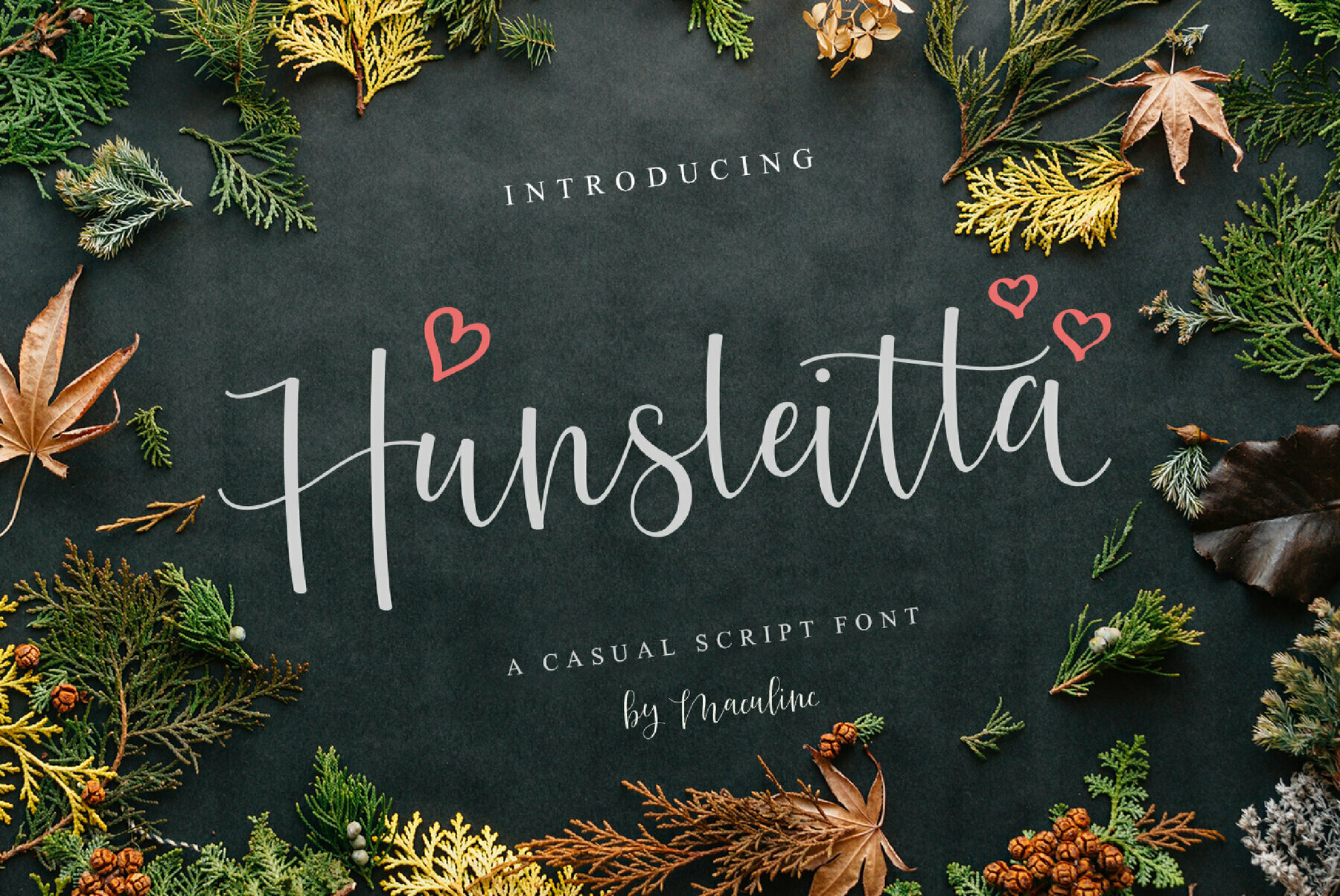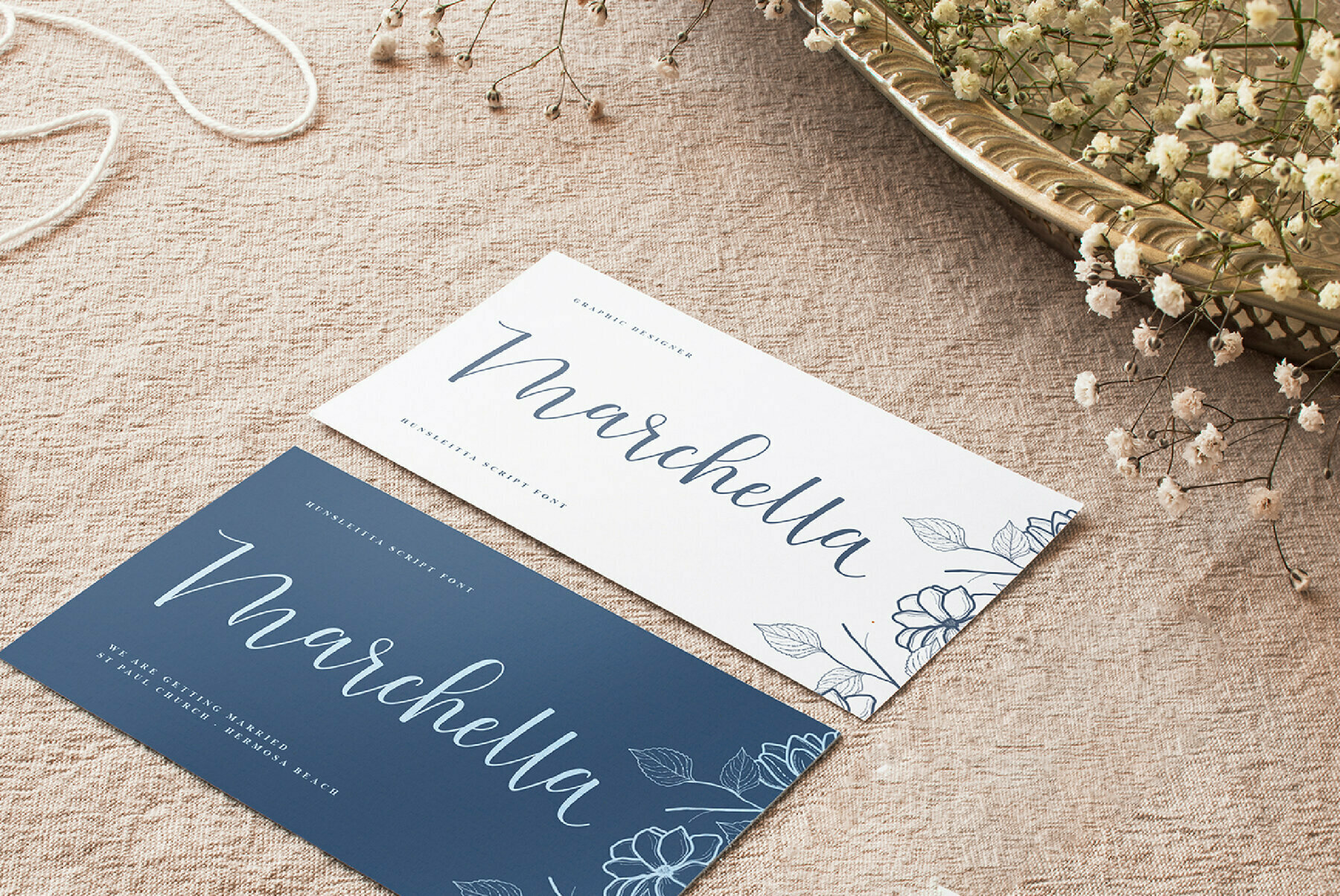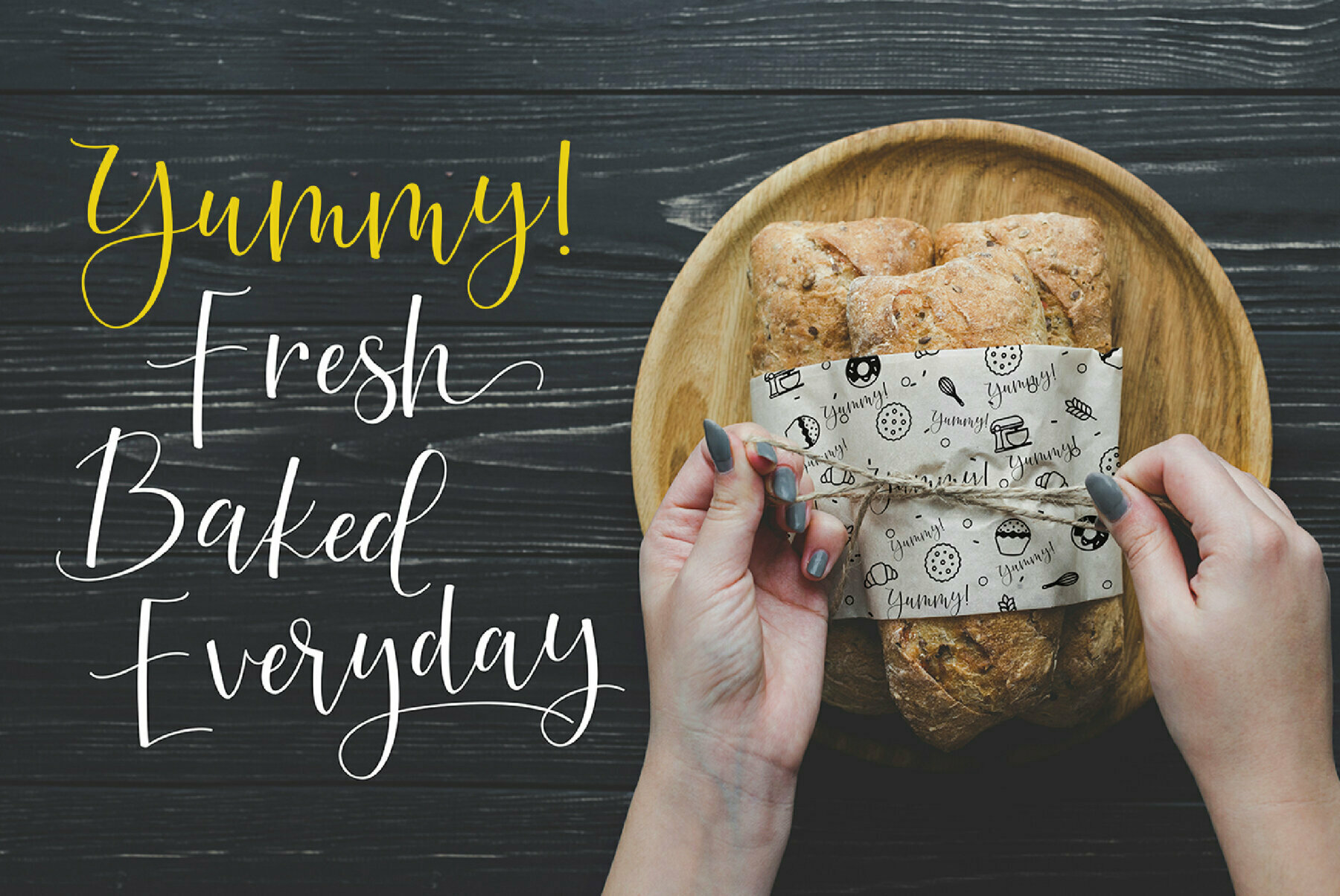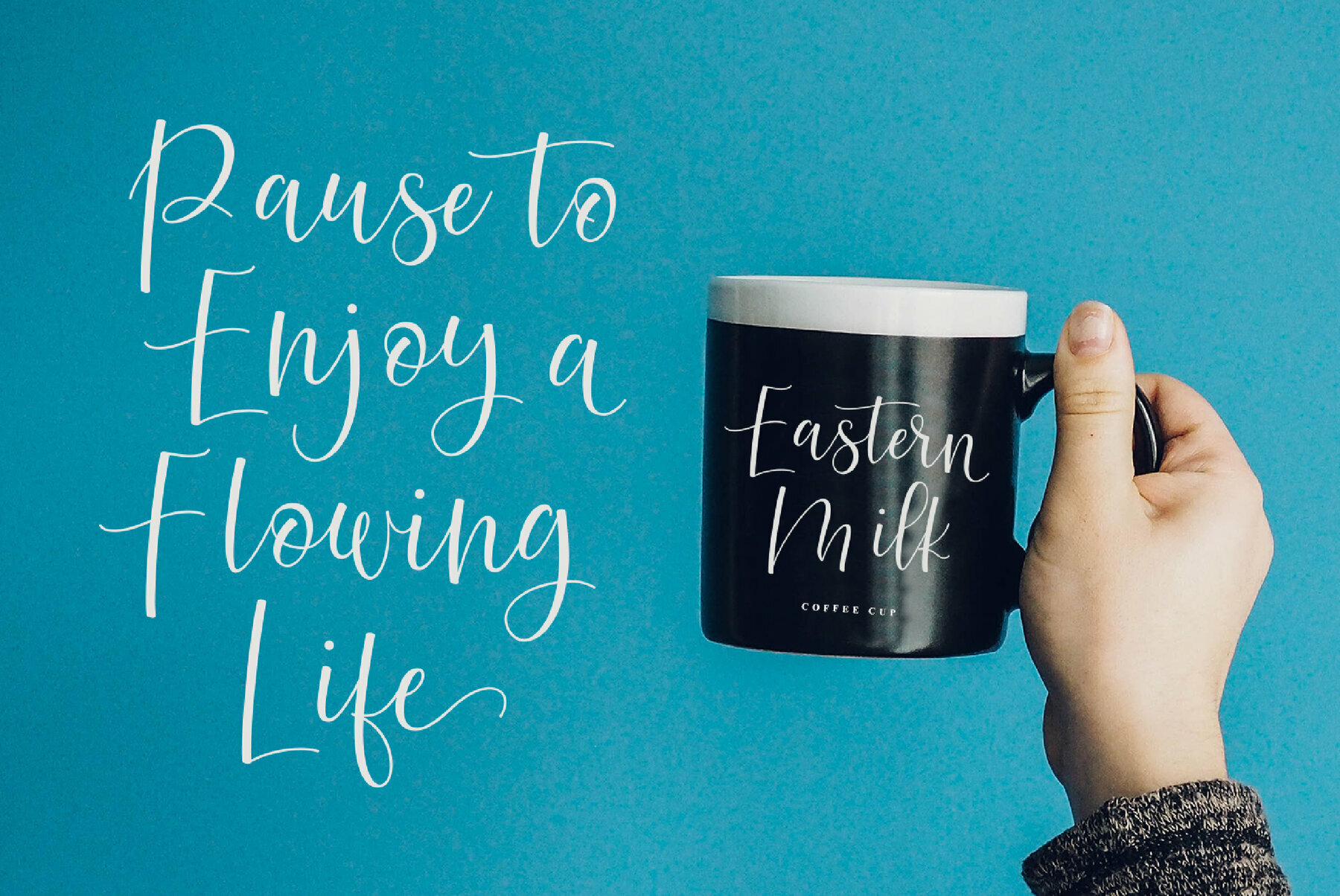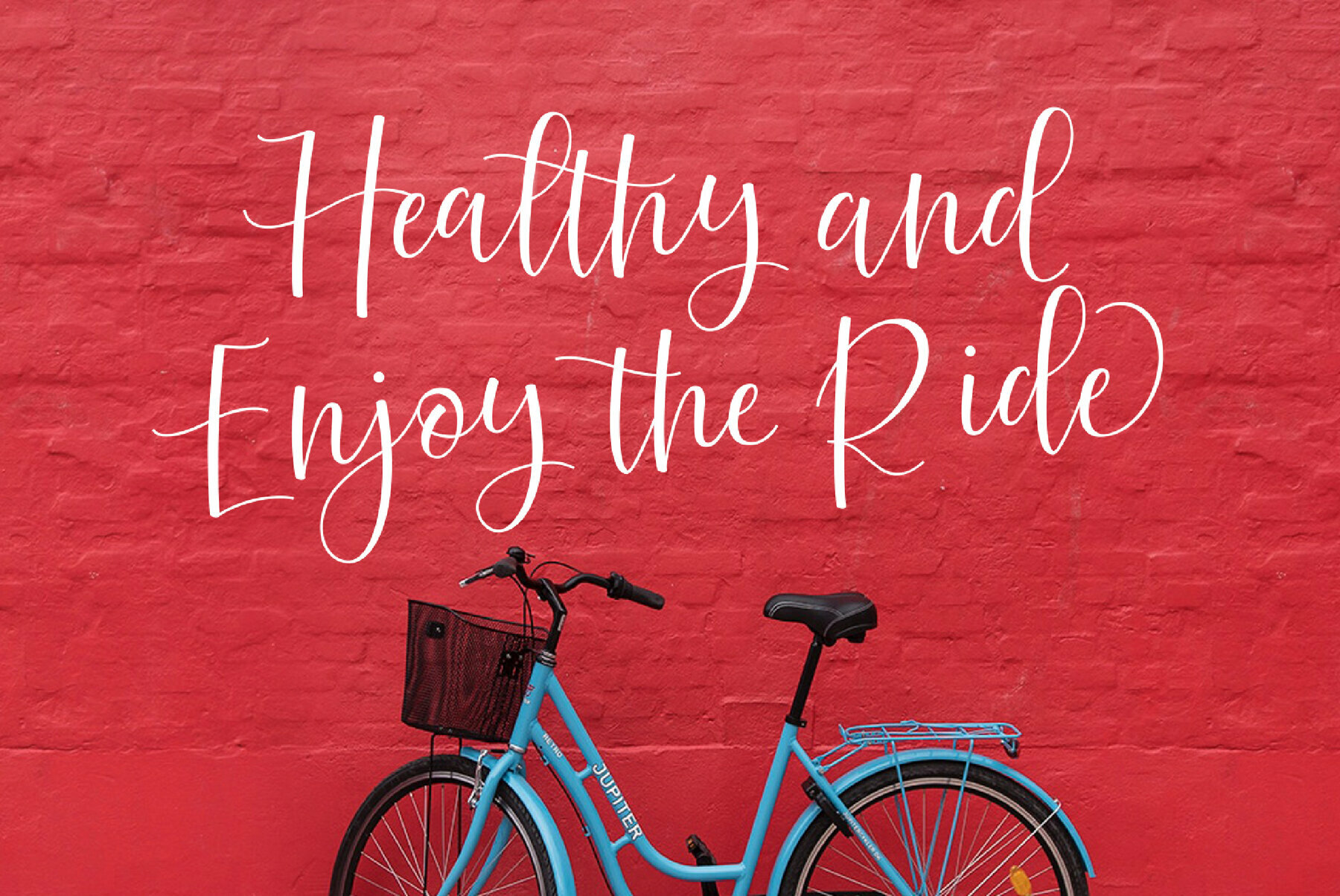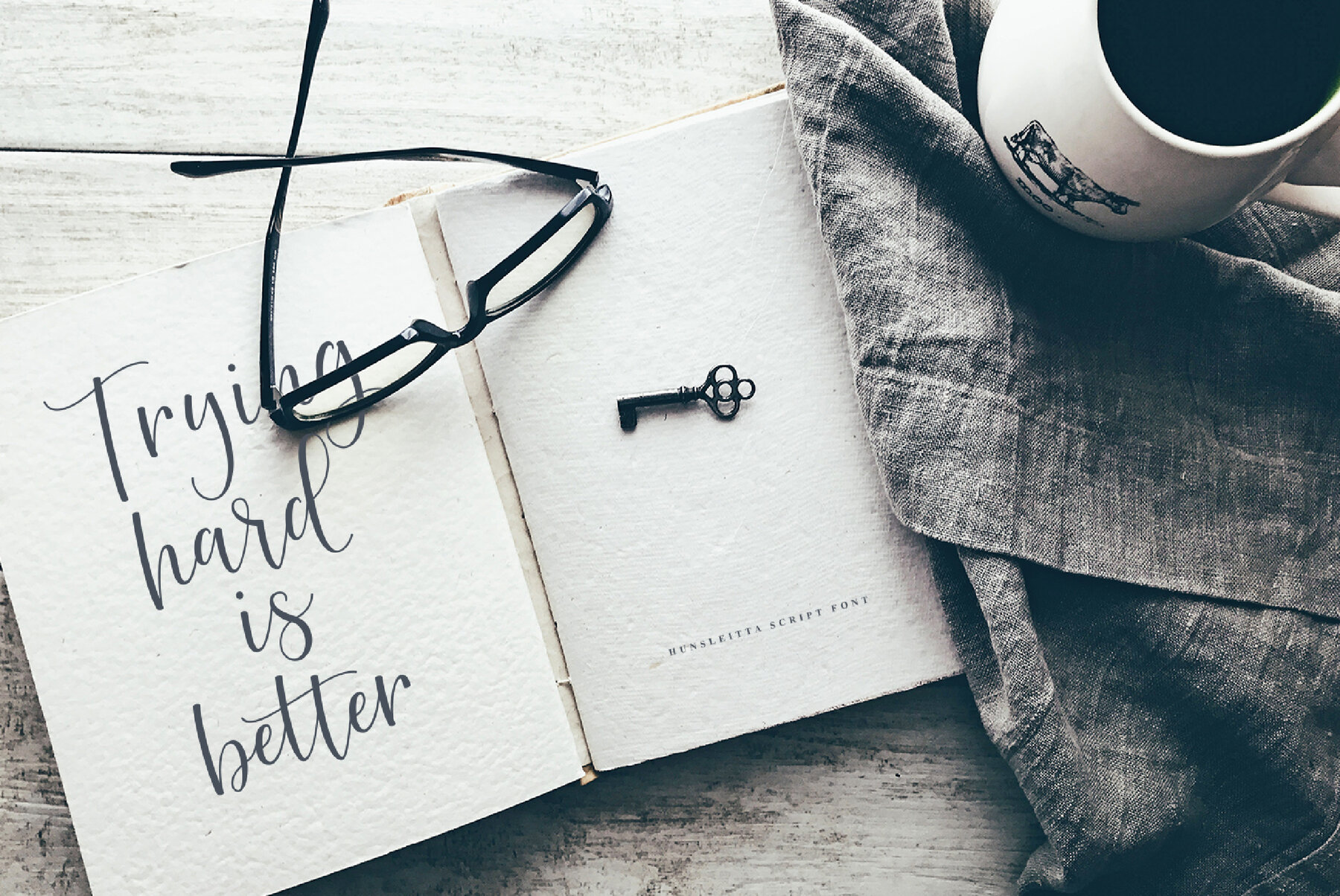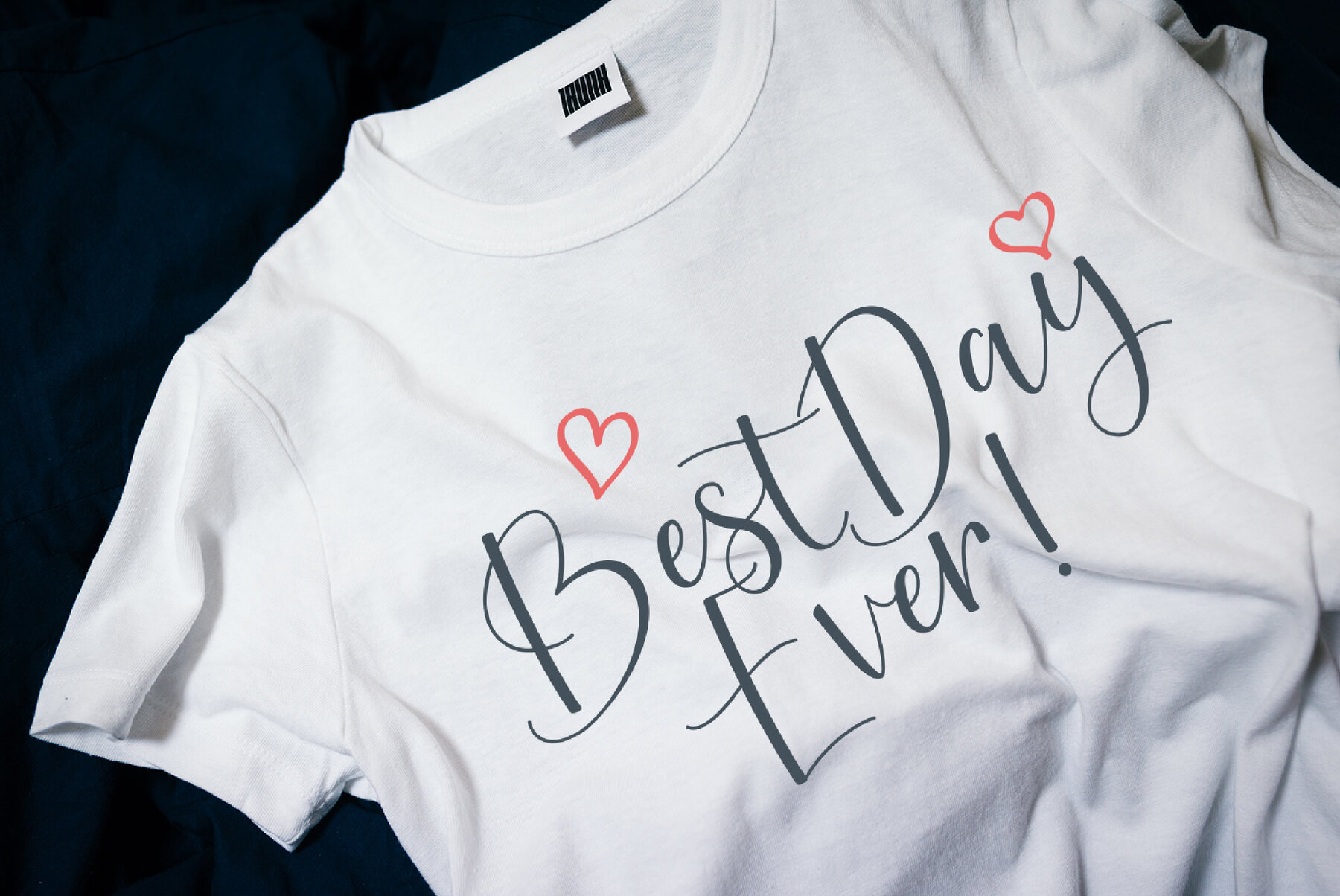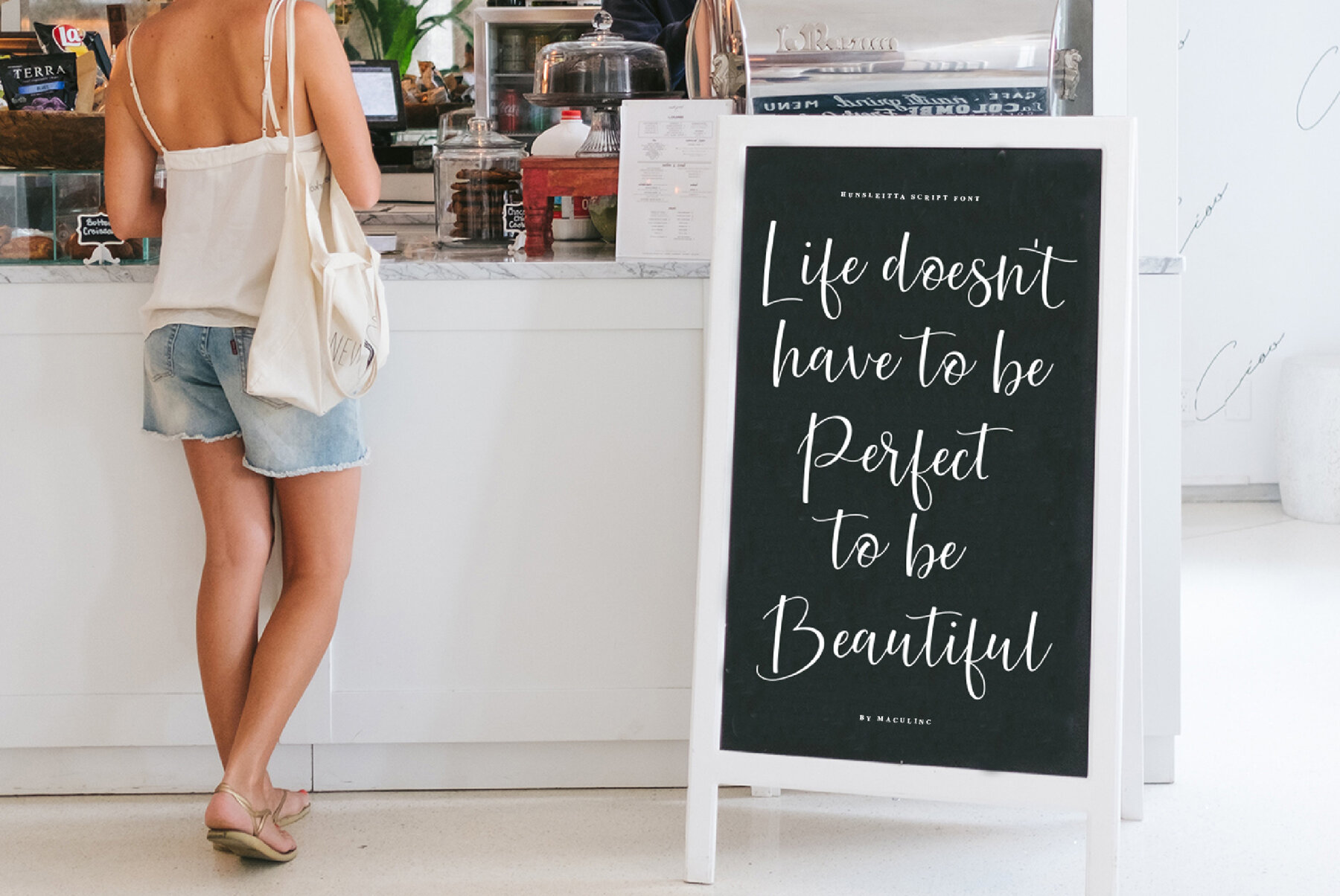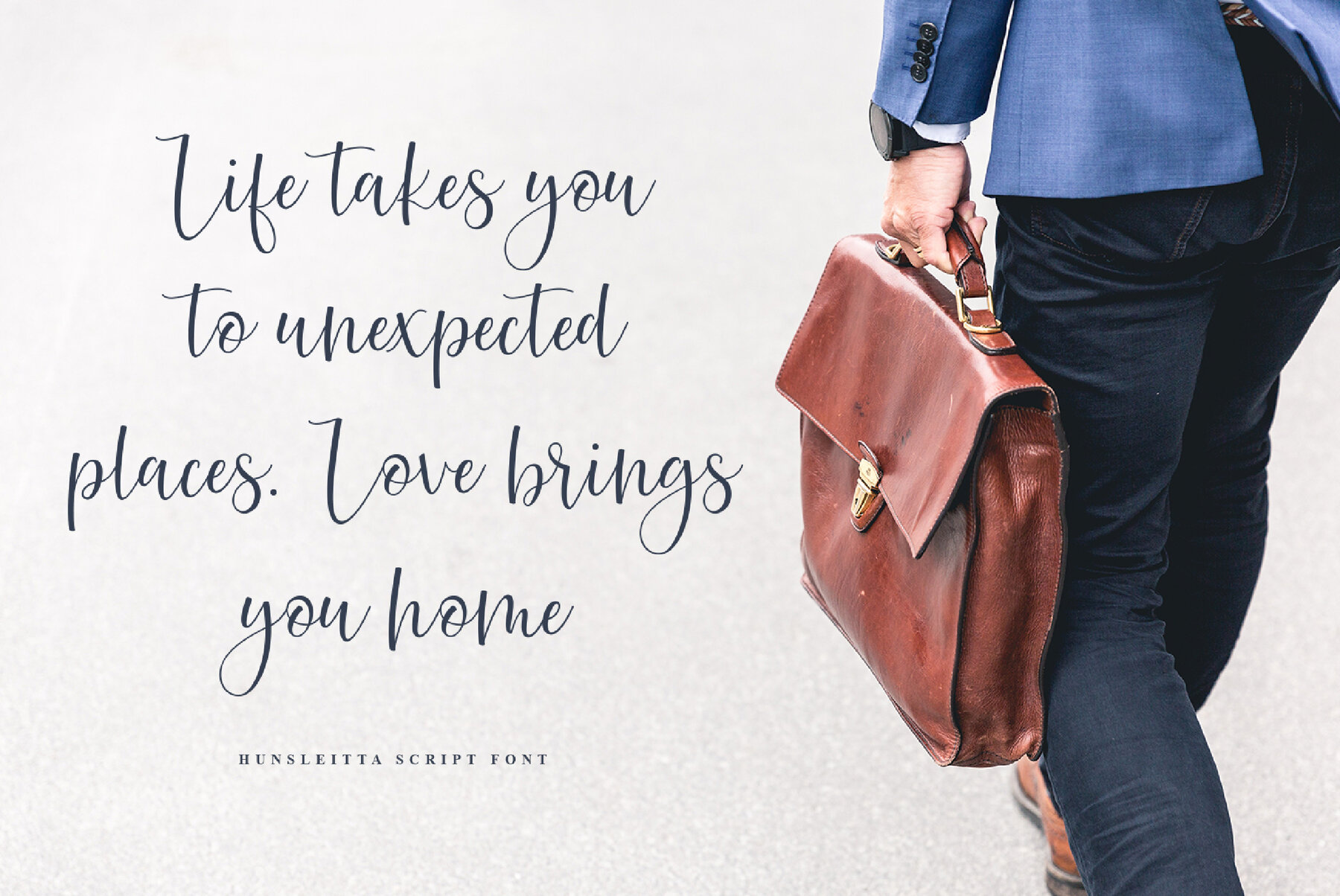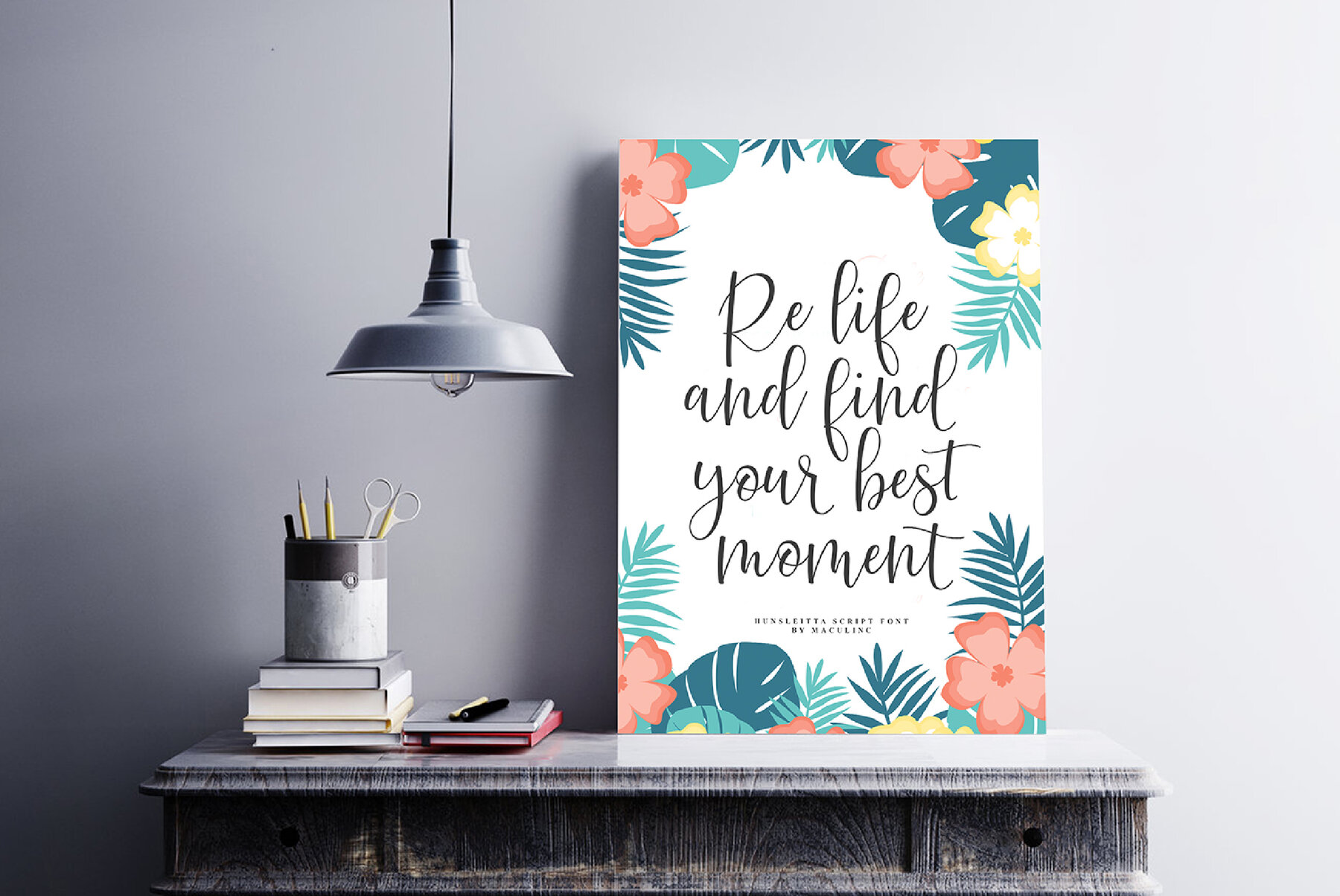
Hunsleitta Font
Hunsleitta offers a remarkable typeface option that balances readability and style, making it suitable for a wide array of projects. Whether utilized in branding, homeware design, product packaging, or as an elegant overlay text, Hunsleitta adapts effortlessly. Its versatility extends to logos, badges, insignias, headlines, posters, apparel, greeting cards, business cards, and wedding invitations. With flowing characters designed to craft attractive messages, Hunsleitta provides a seamless solution for creative directors seeking diversity and sophistication. Offering multiple alternatives—Hunsleitta One, Two, Three, and Four—this typeface presents varied uppercase and lowercase character sets. These alternatives ensure a unique and customizable typographic experience, fostering diverse stylistic choices.Hunsleitta: Versatile Typeface with Flowing Characters